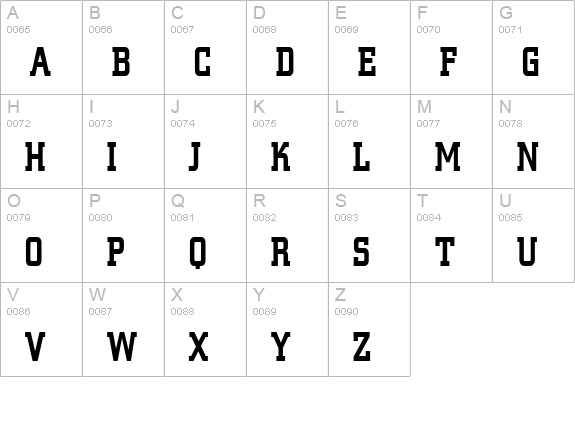
Geo 957 Condensed Bold is a strong, high-contrast, condensed-width variant in the Geo typeface family \xE2\x80\x94 well suited to headlines, attention-grabbing titles, and strong calls-to-action.
Geo 957 Condensed Bold font is a modern and sleek typeface that exudes confidence and sophistication. With its condensed style and bold weight, it is perfect for making a bold statement in any design project. The clean lines and sharp edges of this font make it ideal for headlines, logos, and branding materials. What's even better is that Geo 957 Condensed Bold font is available for free download at FontsMarket.com. You can easily add this stylish font to your collection and use it in your projects without any cost. Whether you are designing a poster, website, or any other creative project, Geo 957 Condensed Bold font will help you achieve a professional and eye-catching look. Download it now and elevate your designs with this versatile and impactful typeface.